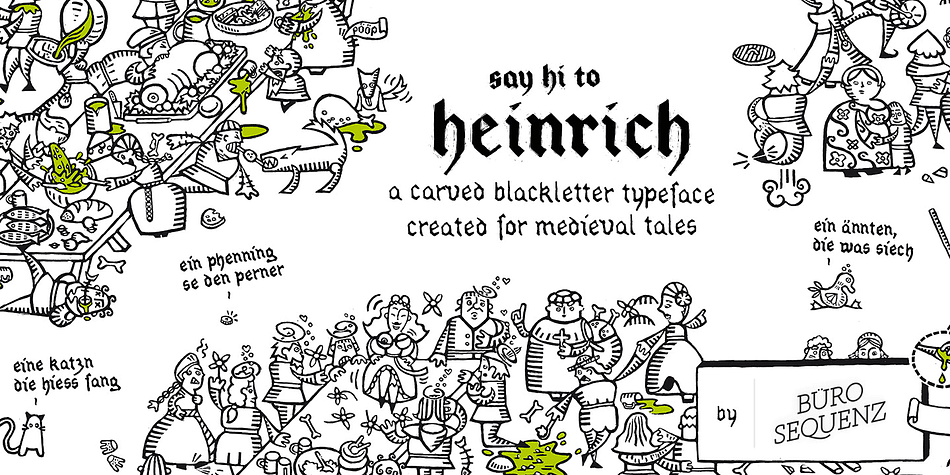
Heinrich is a historical and blackletter font family. This typeface has three styles and was published by Büro Sequenz.
Heinrich is a black letter inspired hand-made typeface by Anna Furrer designed in 2007. It was created as part of a set of illustrations drawn for a story set in the middle ages. The font is available in three weights: Fine, Normal and Detail; the latter is more intricate making it especially effective for headings and larger type.